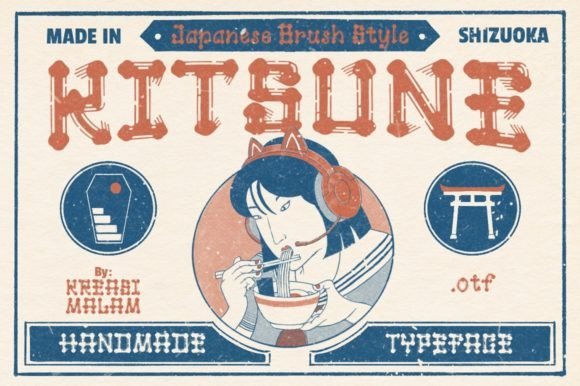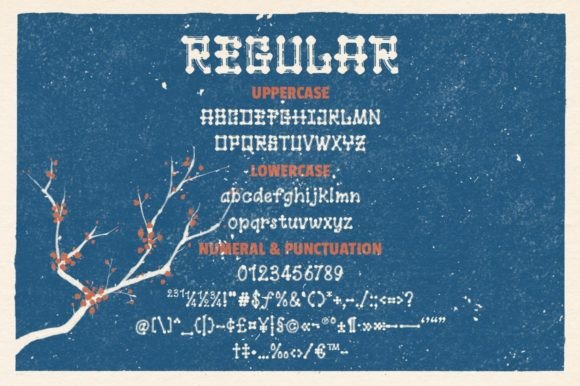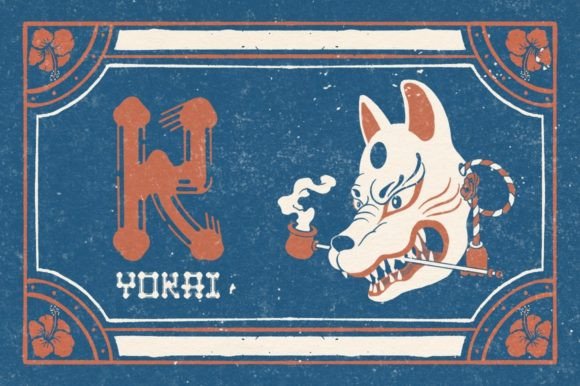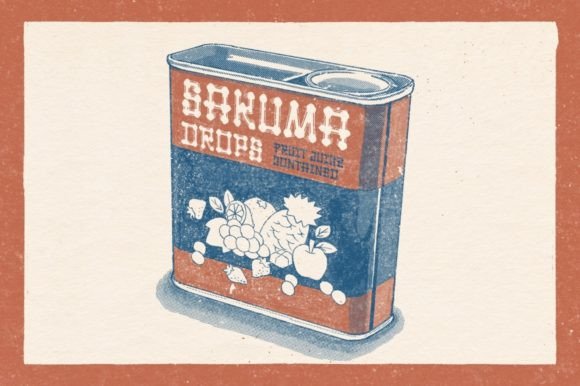
The Birth of a New Design Inspiration
Do you ever find yourself stuck in a creative rut, staring blankly at a blank page, and wondering where to start? That’s exactly how many designers feel when trying to come up with a unique and captivating visual identity for their projects. But what if you stumbled upon a font that transported you to a world of ancient Japanese mysticism and whimsy?
Enter Kitsune Font, a handmade display font with a Japanese style that’s sure to add a touch of magic to your design projects. Whether you’re crafting a logo, writing a quote, or designing a t-shirt, Kitsune Font is the perfect companion to help bring your ideas to life. Its versatility and unique aesthetic make it an invaluable tool for designers looking to add a distinctive flair to their work.
With Kitsune Font, you’ll discover a whole new world of creative possibilities that will take your designs to the next level. So why settle for ordinary when you can unleash the power of this enchanting font in your next project?
Kitsune Font Key Features
- Font Family: Kitsune is a modern Japanese-inspired font, designed to evoke the spirit of traditional Japanese aesthetics.
- Unique Characteristics: Kitsune Font features intricate, hand-drawn designs, including kanji and kana characters, as well as Western characters with a unique Japanese twist.
- Character Set: Kitsune Font includes a comprehensive set of characters, including Latin, Cyrillic, Greek, and Japanese characters, making it suitable for multilingual applications.
Kitsune Font Review
Overall, I found Kitsune to be a visually striking font. Its unique blend of Japanese and mystical elements ✨ adds a touch of sophistication to any design project. The font’s varying line weights and carefully crafted letterforms make it a joy to work with, especially for those looking to add a sense of elegance to their typography.
- ✨ The font’s distinct aesthetic, which seamlessly blends Eastern and Western design influences.
- Its versatility, making it suitable for a wide range of applications, from logos to body text.
- The high-quality, well-crafted letterforms, which result in a polished and refined visual experience.
- The font’s limited character set may be a concern for those working with non-English languages.
- The font’s decorative nature may make it less suitable for projects requiring a more straightforward or minimalist aesthetic.
In conclusion, Kitsune is a solid choice for designers looking to add a touch of sophistication and elegance to their work. While it may have some limitations, its unique aesthetic and high-quality design make it a worthwhile addition to any font collection.
Tips for Getting the Most Out of Kitsune Font
Use Kitsune Font for designs that require a unique and mystical touch. It’s perfect for fantasy-themed designs, logos, and typography projects.
Experiment with different font sizes, colors, and combinations to create visually striking effects.
Kitsune Font is commonly used for:
- Fantasy-themed designs
- Typography projects
- Graphic novels and comic books